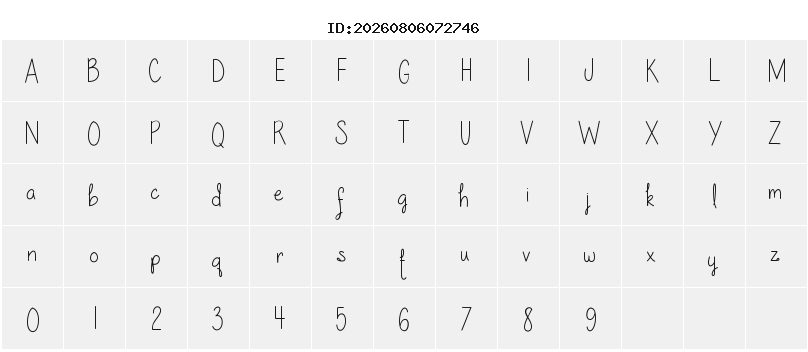
Our lil secret forever Preview
• Font Name: Our lil secret forever
• Full Font Name: Our lil secret forever
About Our lil secret forever.ttf
Our lil secret forever.ttf is a modern, elegant sans-serif font designed for ultimate readability and visual harmony. Perfect for branding, headlines, web design, and print materials.